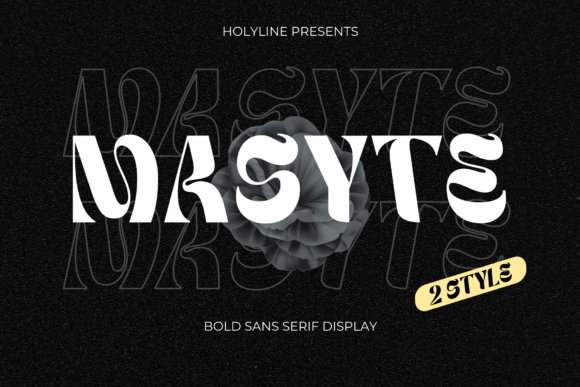
Embark on an extraordinary typographic journey with the Masyte Font, a creation by holyline design. This captivating sans-serif font is more than just a collection of letters; it's an artistic masterpiece that exudes elegance, opulence, and grandeur like no other. With its intricate, decorative details and ornate flourishes, the Masyte Font transforms ordinary text into a symphony of visual delight.
Step into a world of beauty and luxury as you witness the Masyte Font grace your digital creations. This exquisite font is the epitome of sophistication, with its refined and graceful curves that evoke a sense of royalty and prestige. Imagine your brand logo adorned with the Masyte Font, radiating an aura of sophistication that speaks volumes about your commitment to quality and excellence.
Unleash your creativity and let the Masyte Font elevate your typography to new heights. Whether you're crafting stunning invitations, designing eye-catching posters, or developing captivating websites, this font is your perfect companion. Its intricate details add a touch of visual intrigue that commands attention and leaves a lasting impression.
With the Masyte Font, you'll discover a world of possibilities. Its versatility extends beyond the realm of logos and typography. This font is a versatile masterpiece that seamlessly adapts to a variety of creative projects. From elegant wedding invitations to captivating social media posts, the Masyte Font adds a touch of sophistication and charm wherever it's used.
Experience the transformative power of the Masyte Font today and elevate your creative projects to new heights. Indulge in the beauty of its intricate details and watch as your designs come to life with a sense of opulence and grandeur. Make a statement, leave a lasting impression, and embark on a journey of typographic excellence with the Masyte Font.